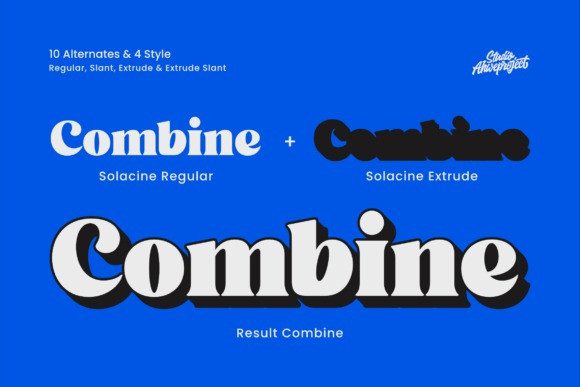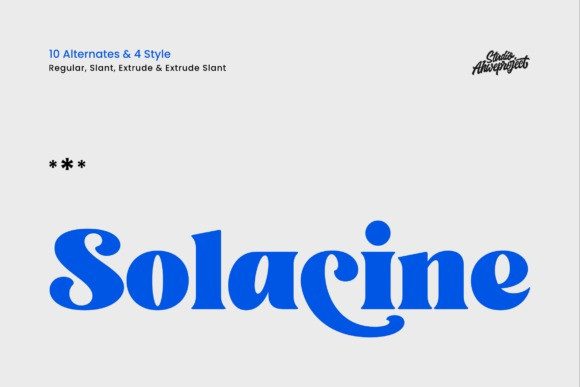
Solacine Font
Solacine Font is a bold retro display serif that radiates character with its vibrant curves and confident groove, making it the perfect choice for eye-catching logos, impactful headlines, posters, packaging, and social media visuals.
Its rounded forms and signature flowing “c” tail strike the ideal balance between playful and polished, instantly drawing attention while maintaining a clean, cohesive look. Featuring four versatile styles—Regular, Slant, Extrude, and Extrude Slant—you can effortlessly mix and match to create striking 3D effects.
With 10 stylistic alternates, Solacine lets you build unique wordmarks and titles that truly stand out.
Whether you’re branding for fashion, food and beverage, music, events, or lifestyle, this font brings a modern-retro vibe that commands attention. Perfectly optimized for display use, it’s a go-to for everything from YouTube thumbnails and banners to stickers, merch, and editorials.
When you need a retro font that makes your message pop on sight, Solacine delivers memorable impact in seconds.